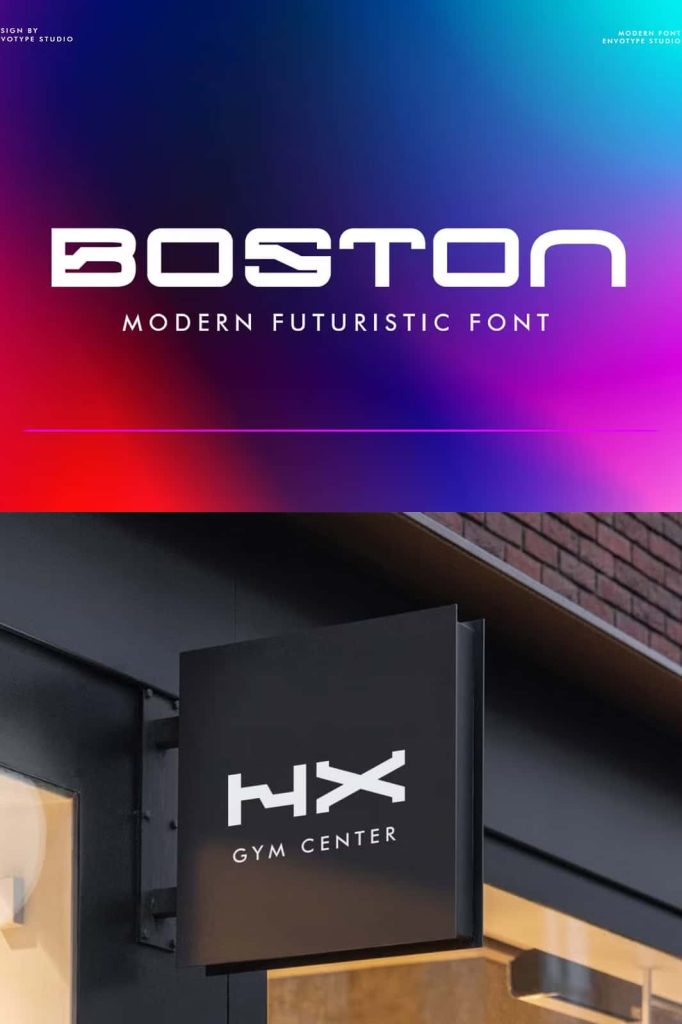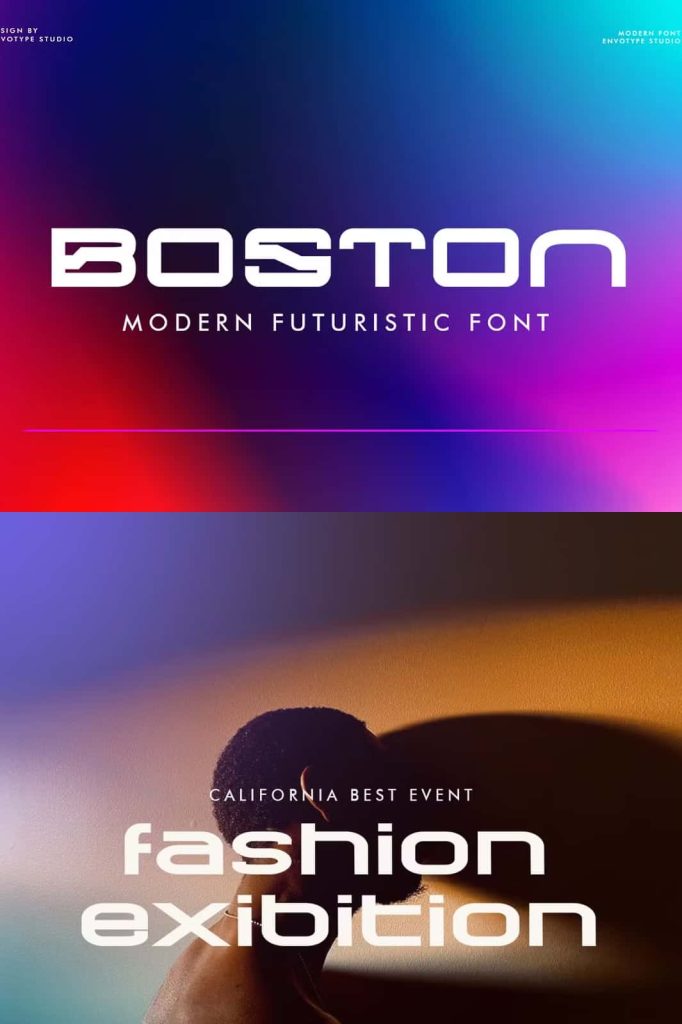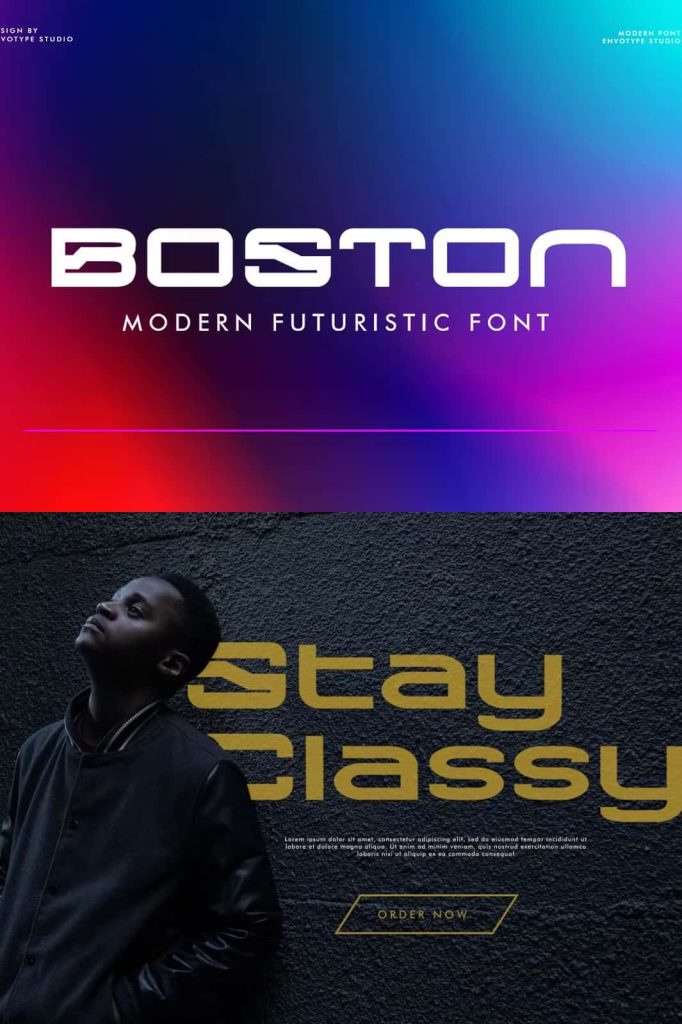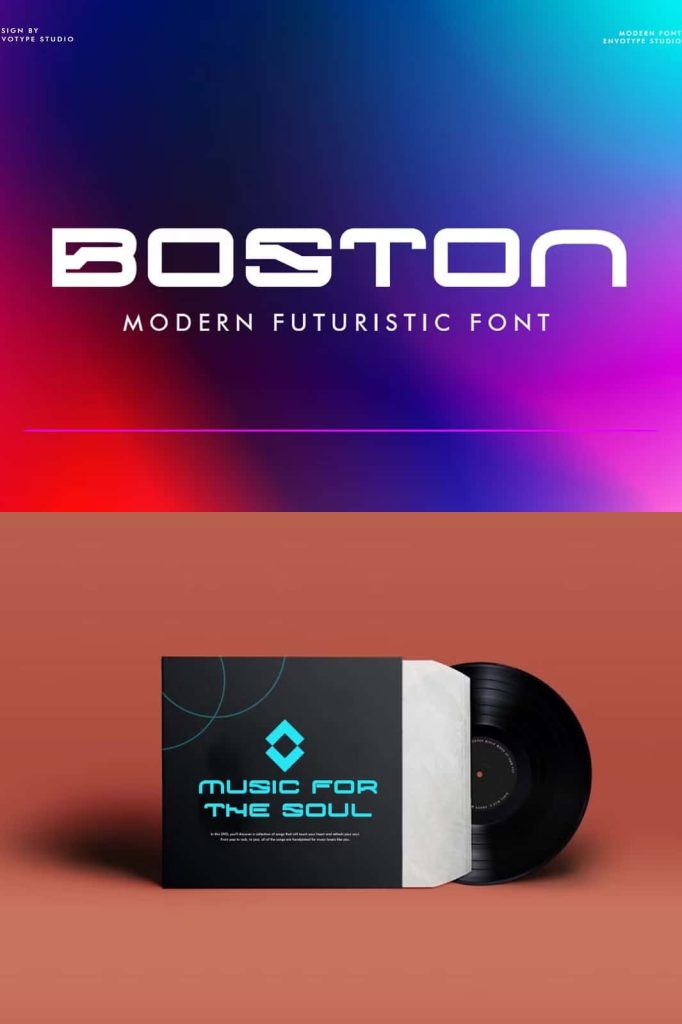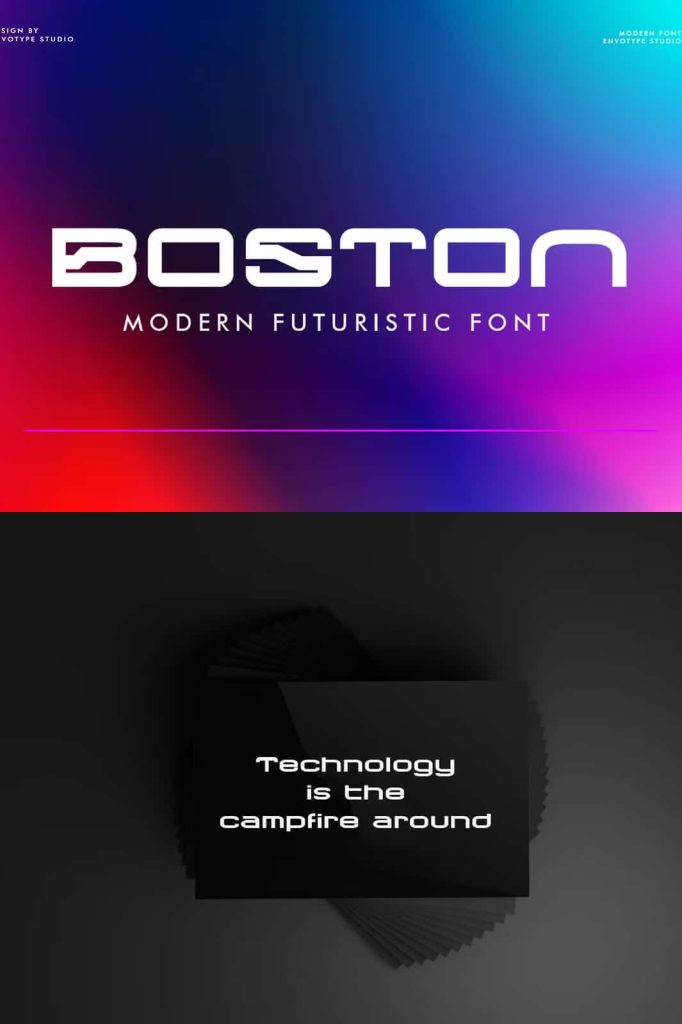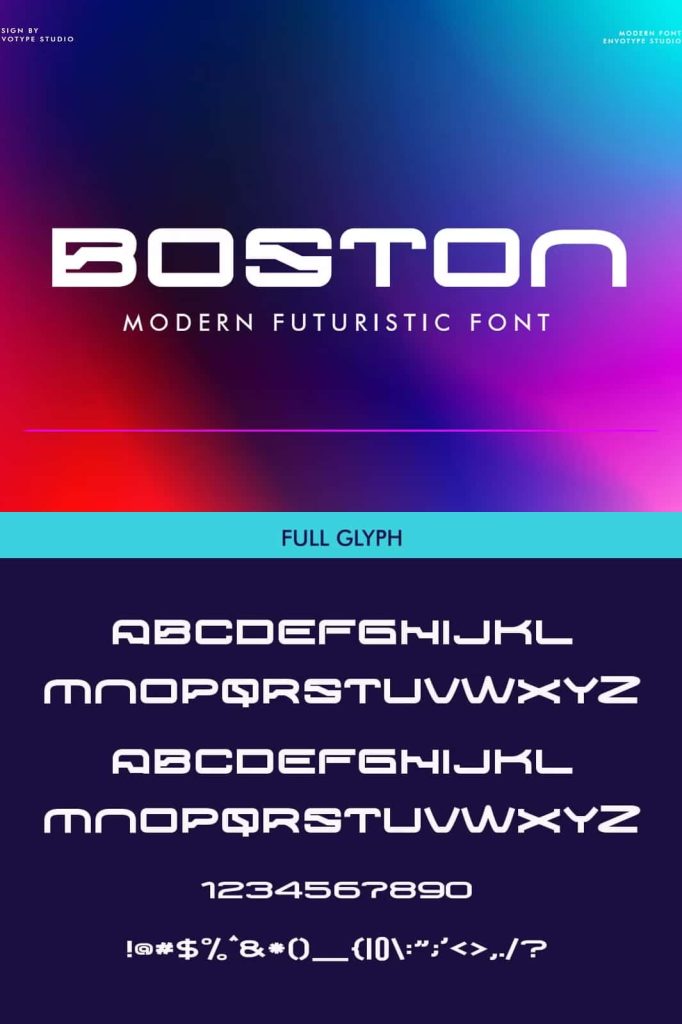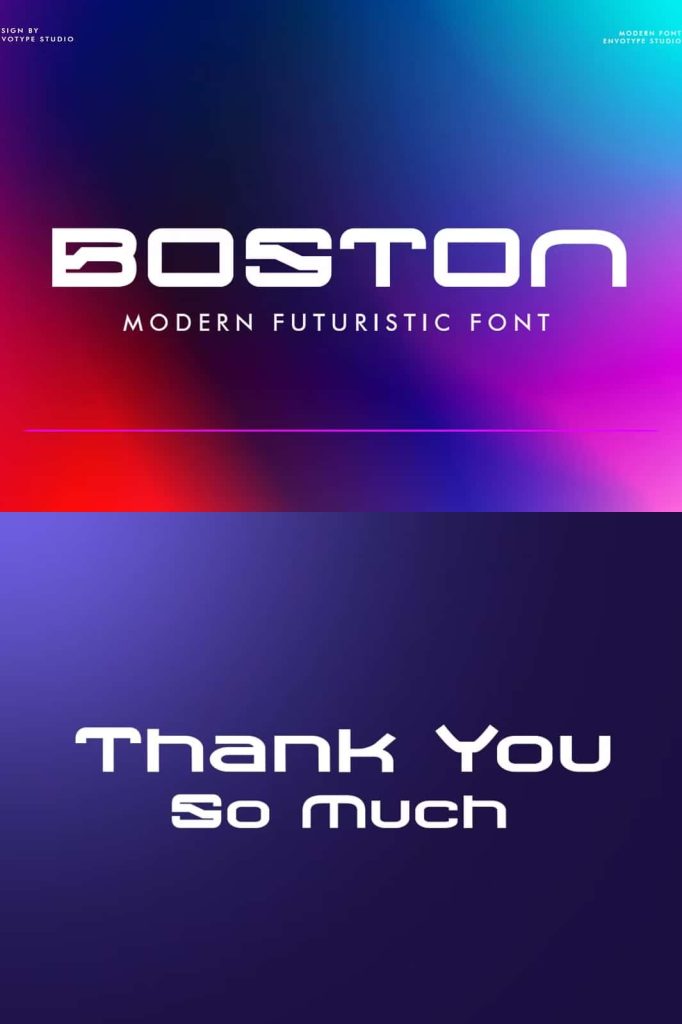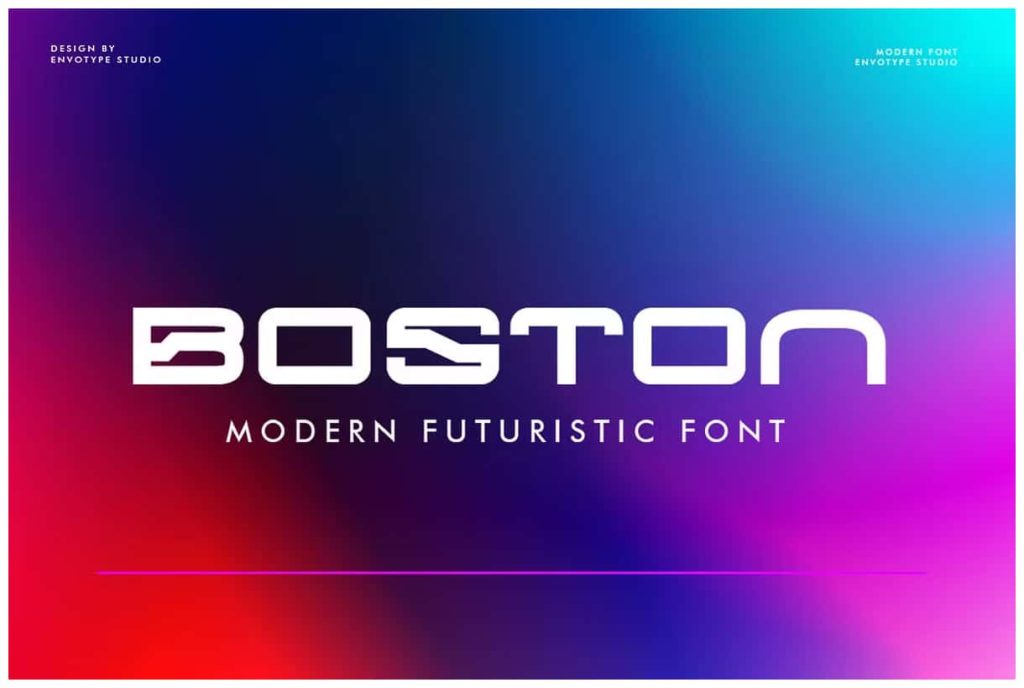
Boston – Bold Modern FontleastedFebruary 16, 2025Fonts Boston is a sans based font with unique lowercase that will make your design looks futuristic and modern. Download